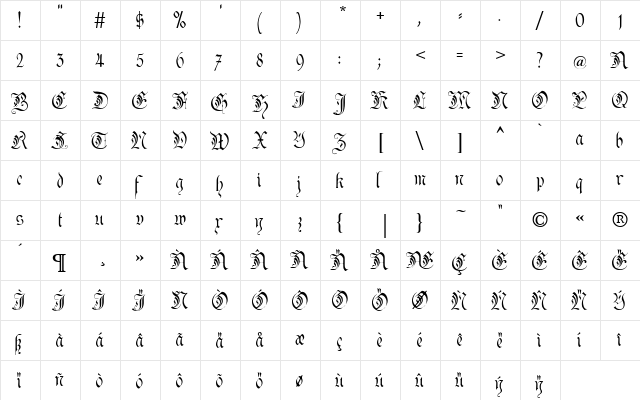
Kanzler Regular
| Foundry | Peter Wiegel |
| Designer | Peter Wiegel |
Design Context for Kanzler Typeface
Kanzler is a composed and adaptable typeface that performs quietly and consistently across a wide range of design contexts.